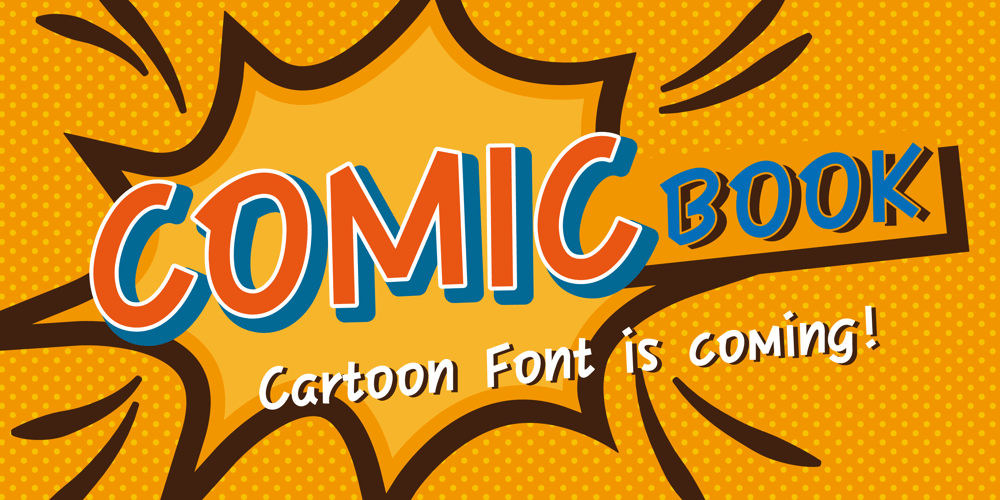
Comic Book Font Family was designed by Tingnian Liu and published by Kika Fonts. Comic Book contains 1 styles and family package options. Designed by designer Tingnian Liu in 2015/10, Comic Book is a hand-drawn typeface specially designed for comic. Comic Book supports English, French, Spanish, Portuguese and German. It is a distinct choice for your comic book editorial challenge. Instead of adding rounded end to standard comic-type typefaces, Comic Book‘s squared ends were perfectly complementing the whole rounded style. It gives audience a cheerful feeling and makes them laugh.